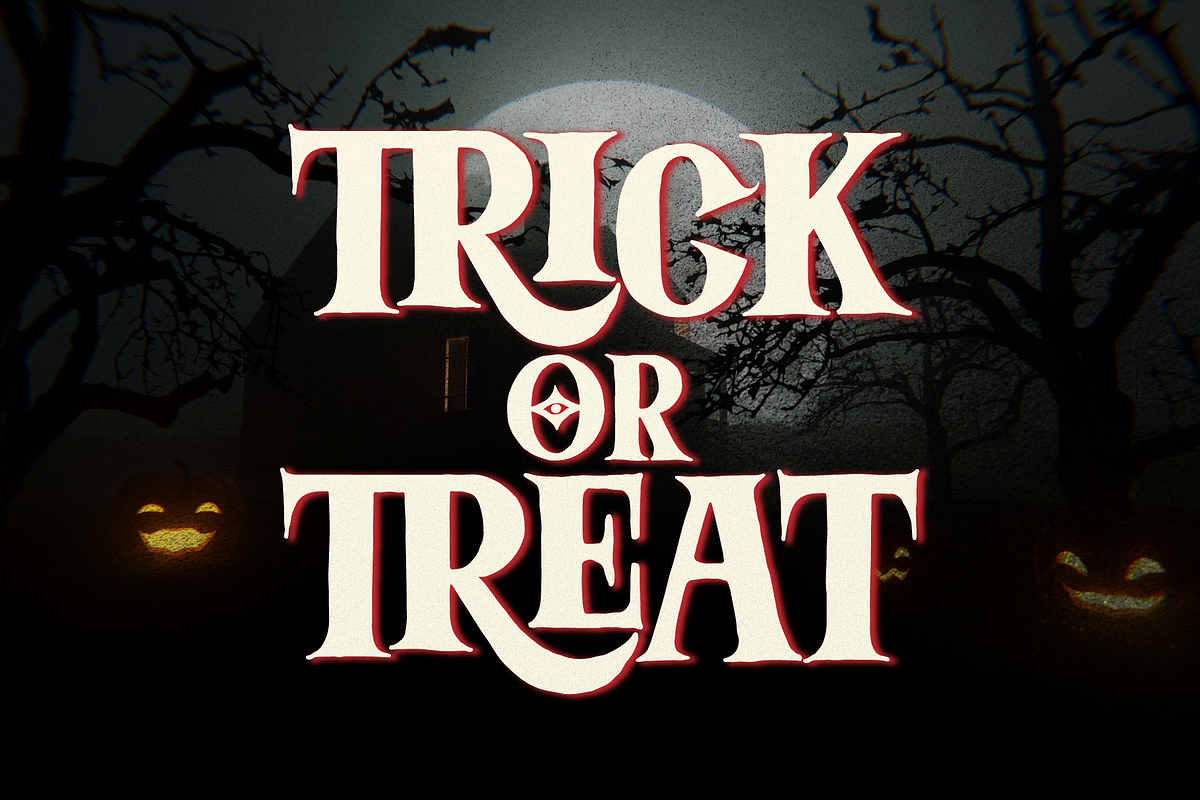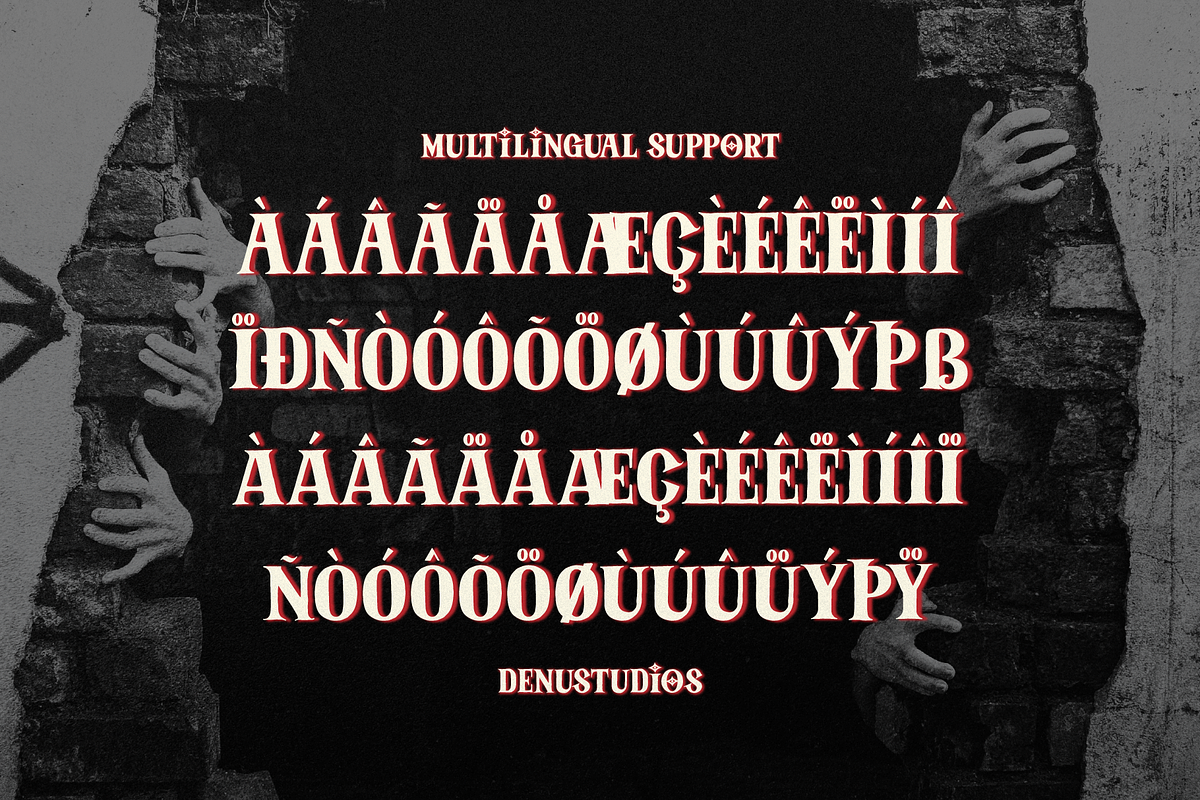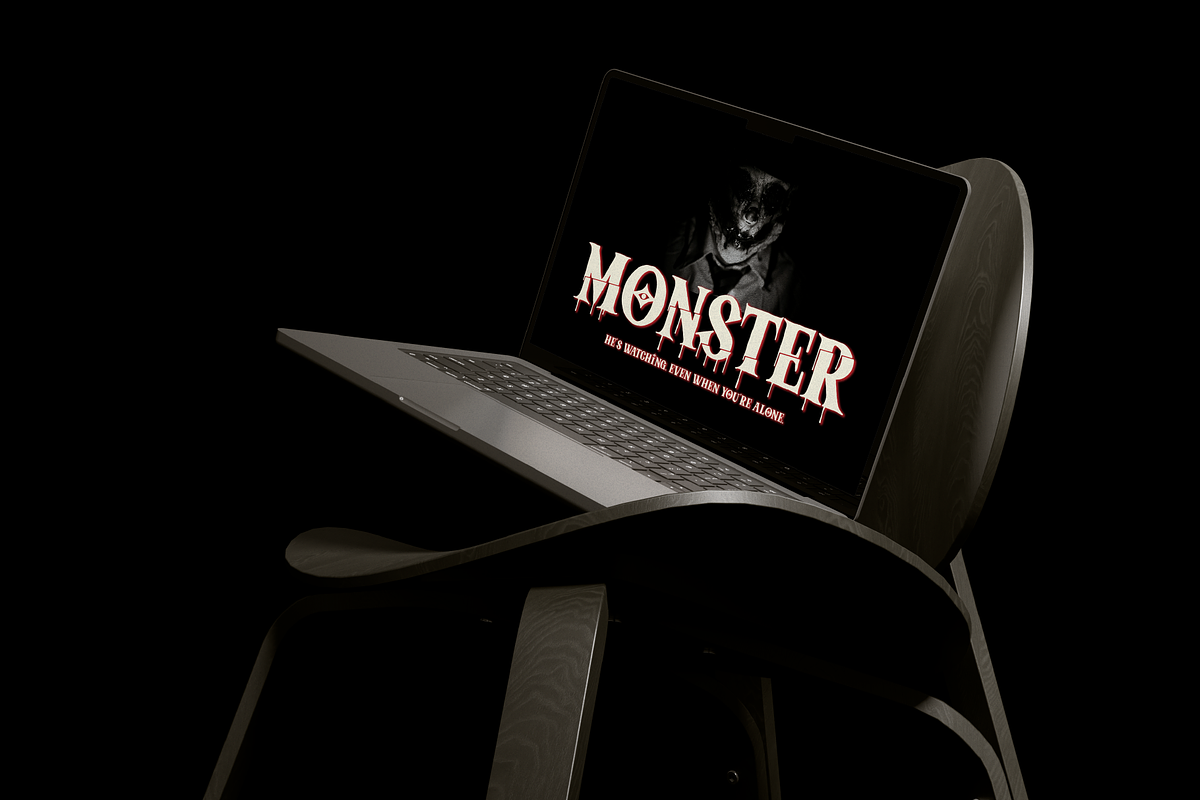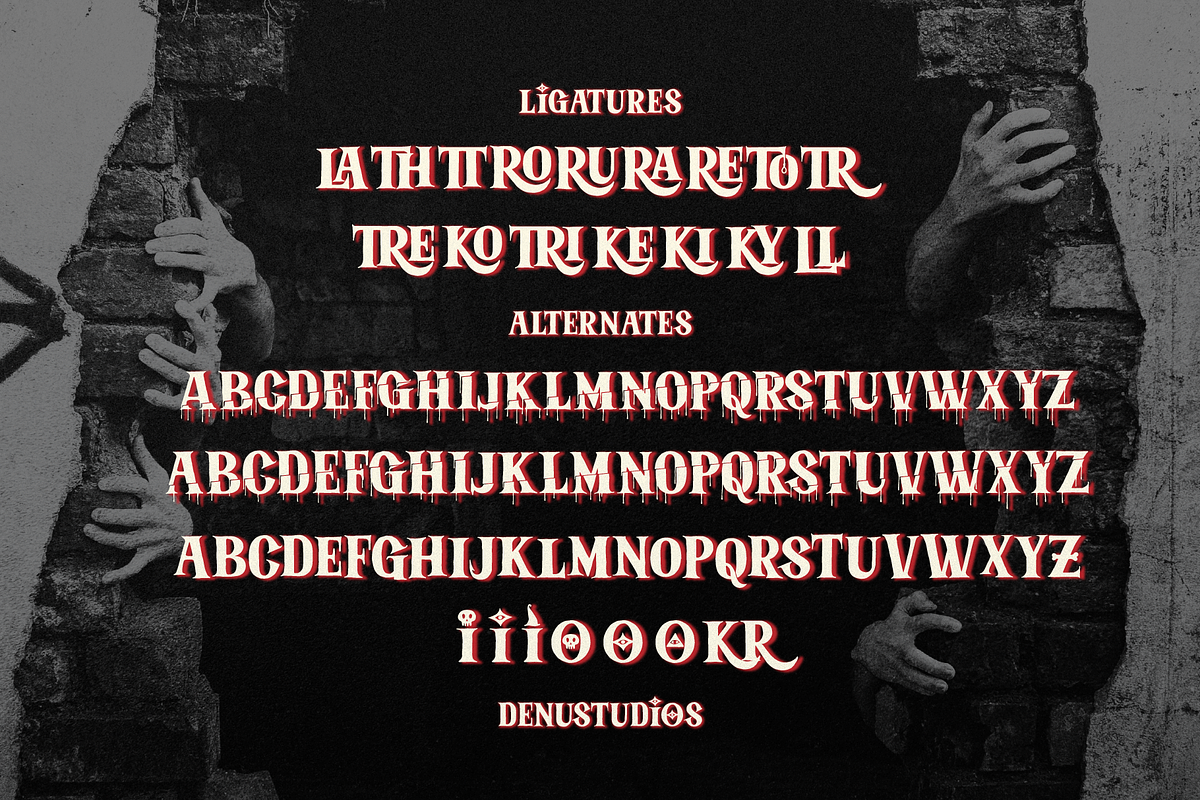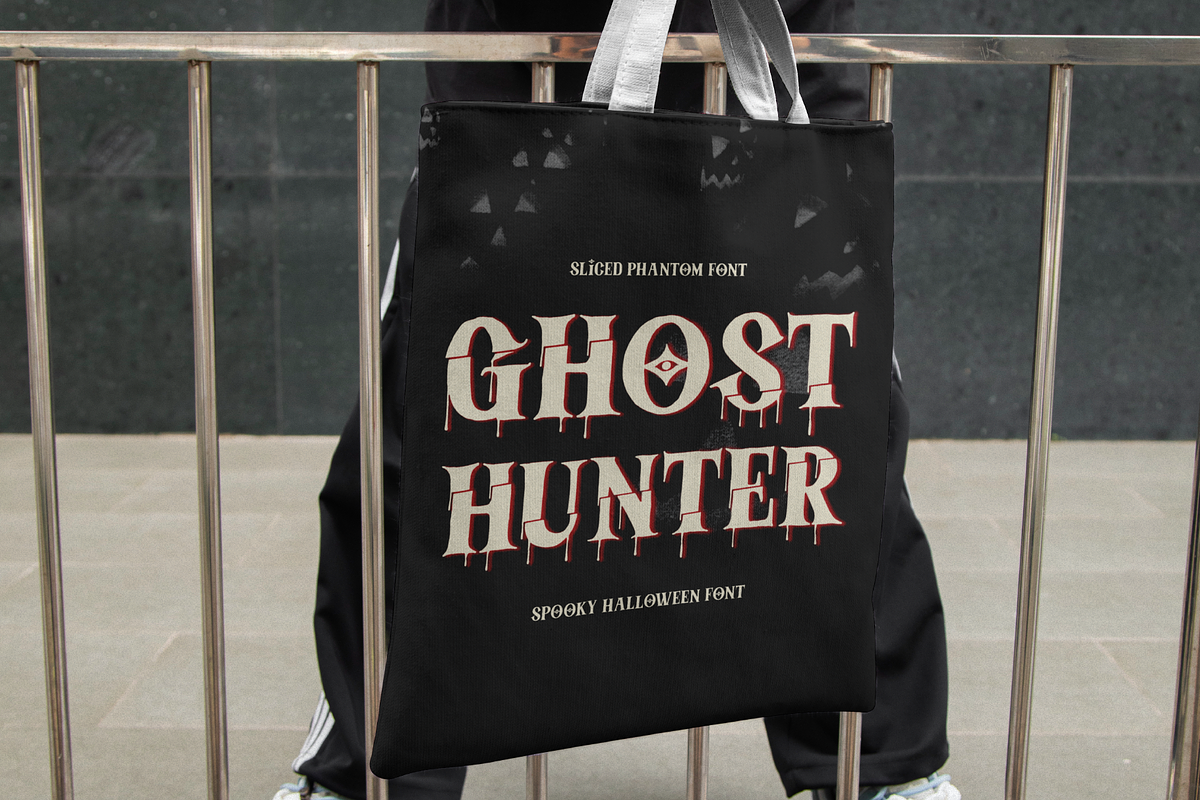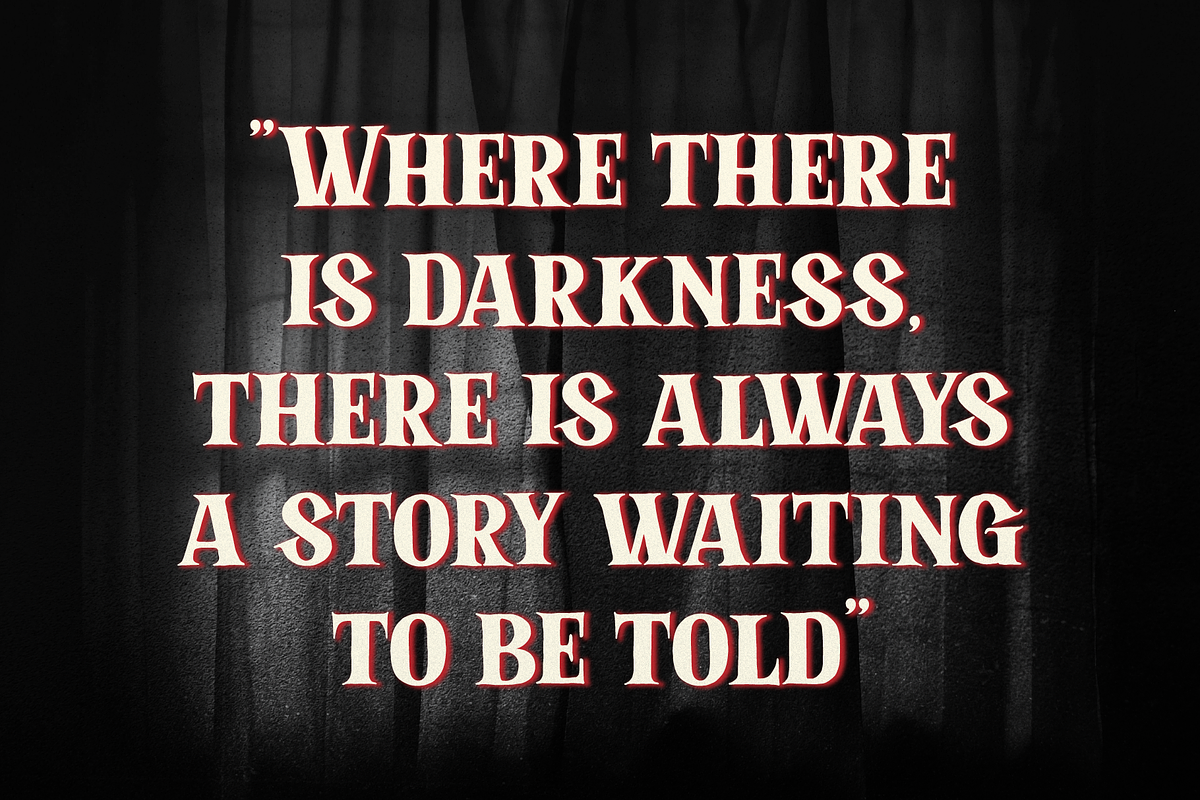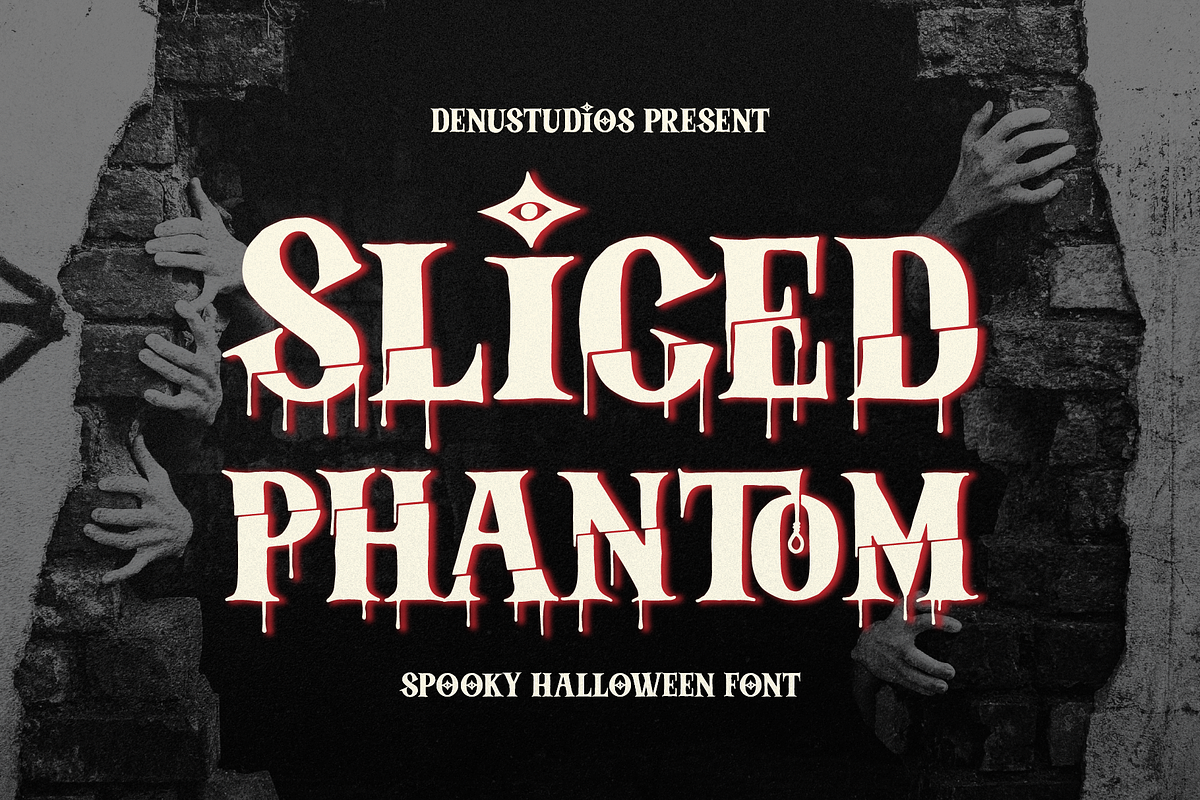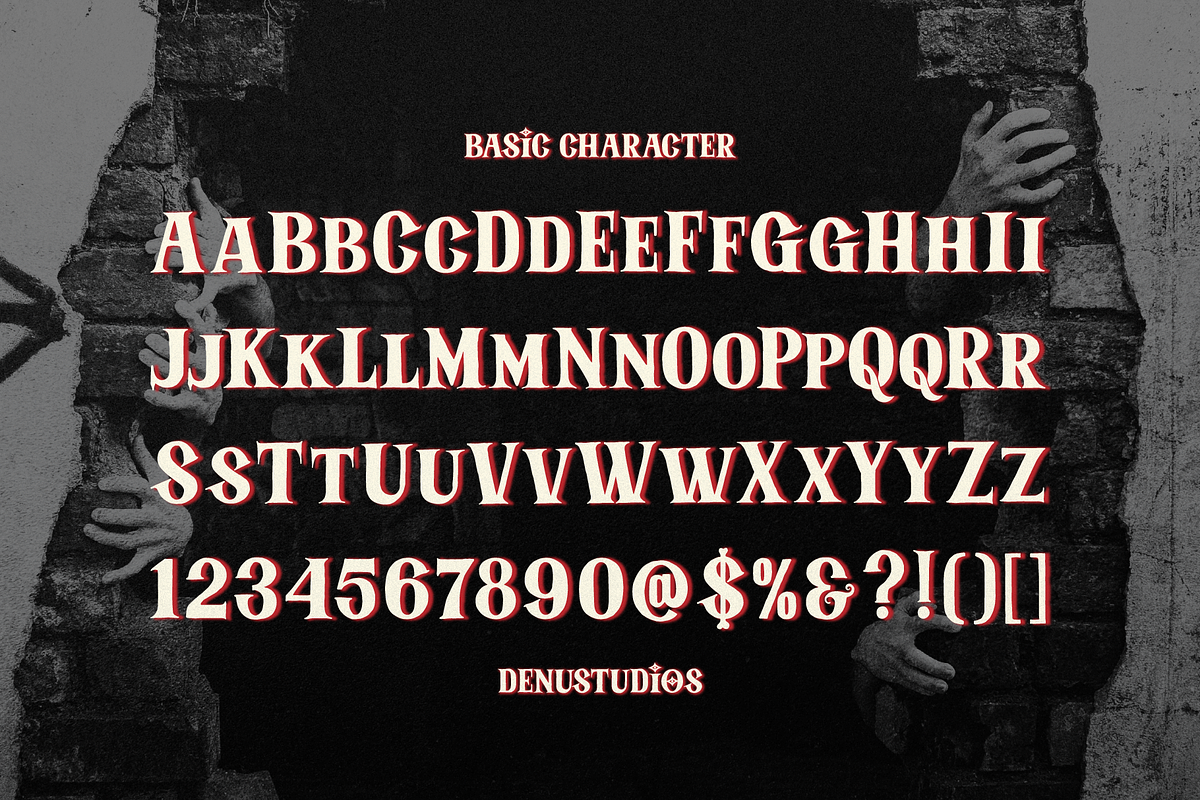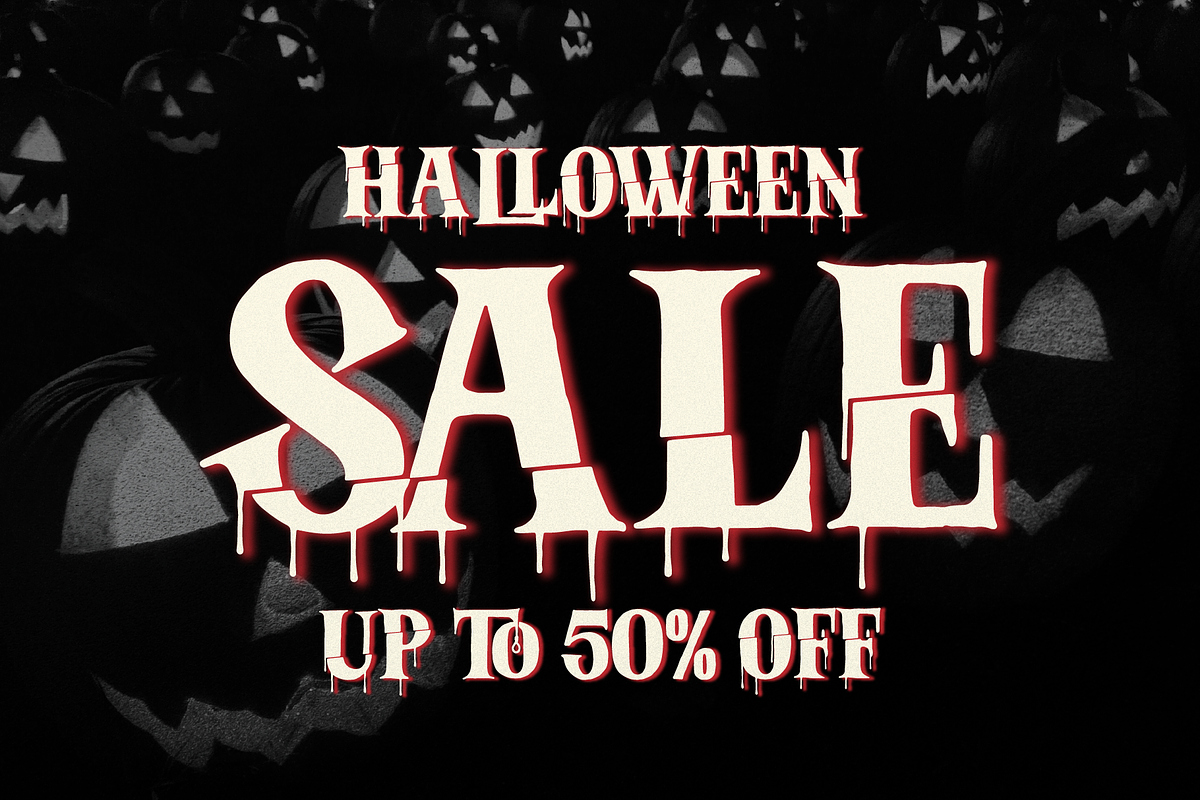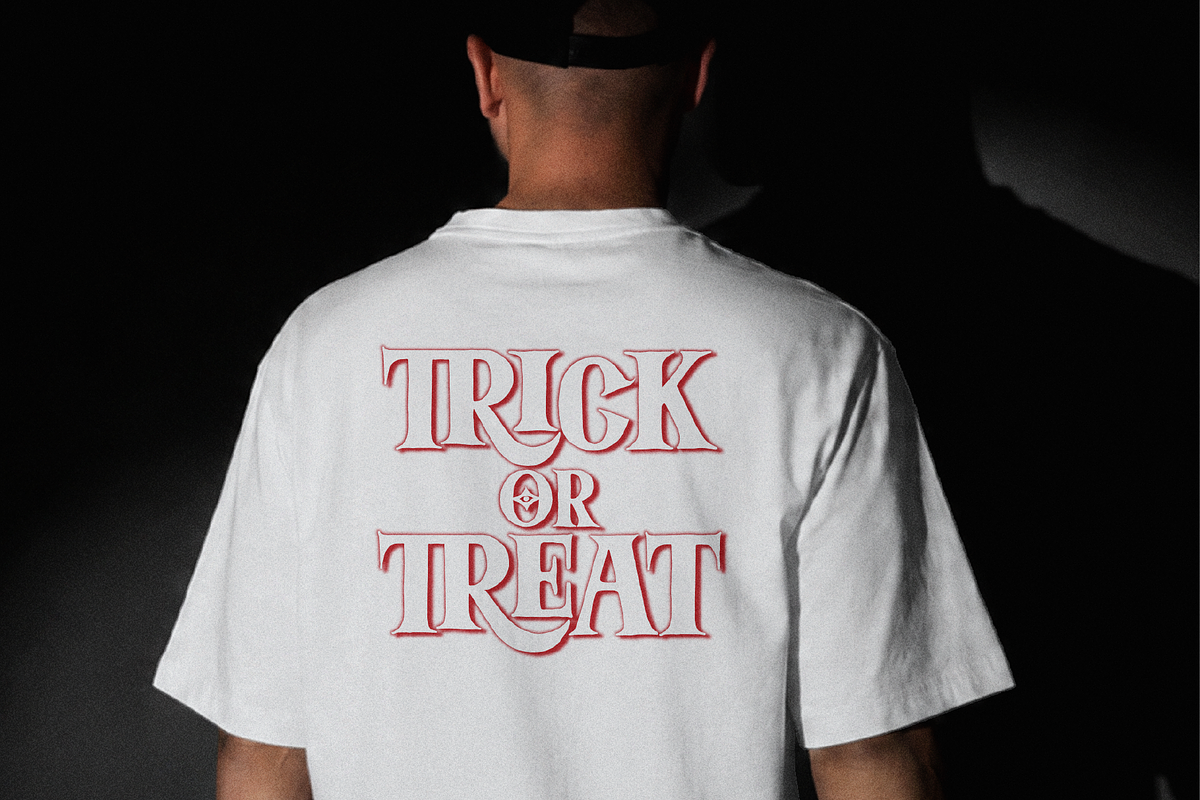
Sliced Phantom Spooky Halloween Font
**Sliced Phantom | Spooky Halloween Font, **from Denustudios, suitable for any projects such as: logos, branding projects, homeware designs, product packaging, mugs, quotes, posters, shopping bags, t-shirts, book covers, name card, invitation cards, greeting cards, label, photography, watermark, special events, and all your other lovely projects that need a Halloween Font taste.
Standard glyphs
Alternate and Ligature
Fonts include multilingual support